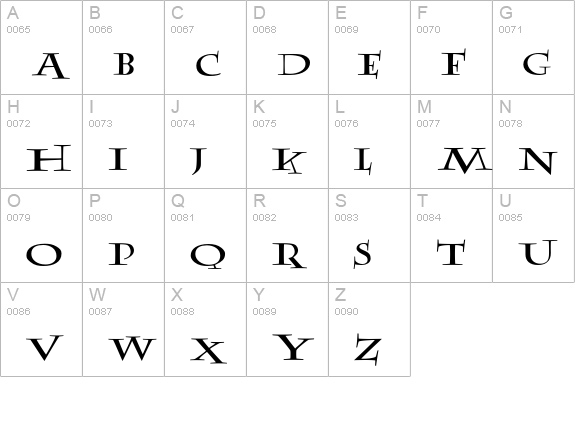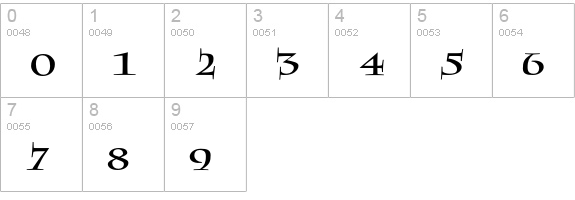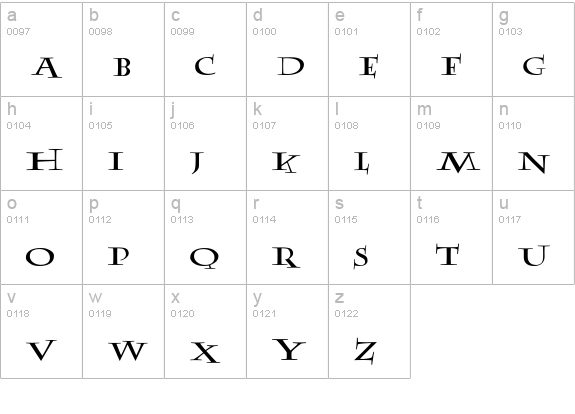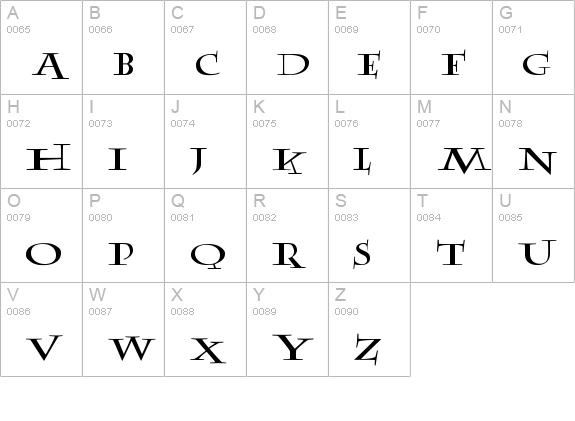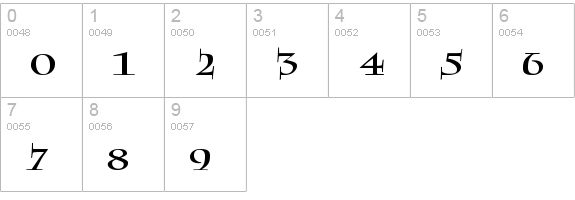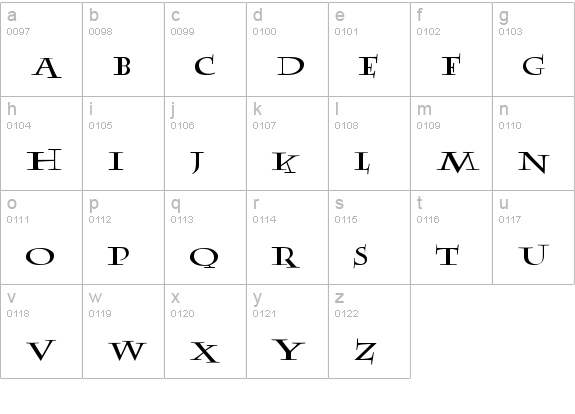
Ablefont Font Details
Introducing Ablefont, a modern and stylish typeface designed to elevate your designs to the next level. This versatile font is perfect for various projects, from branding to social media graphics and everything in between. With its clean lines and contemporary feel, Ablefont exudes professionalism and sophistication. What sets Ablefont apart is not just its sleek design, but also its accessibility. This font is available for free download at FontsMarket.com, making it the perfect choice for designers looking to add a touch of elegance to their work without breaking the bank. Whether you're a seasoned professional or just starting out, Ablefont is sure to impress with its versatility and ease of use. Add a touch of class to your designs with Ablefont today and see the difference it can make in your projects. Download it for free at FontsMarket.com and unleash your creativity with this stunning typeface.